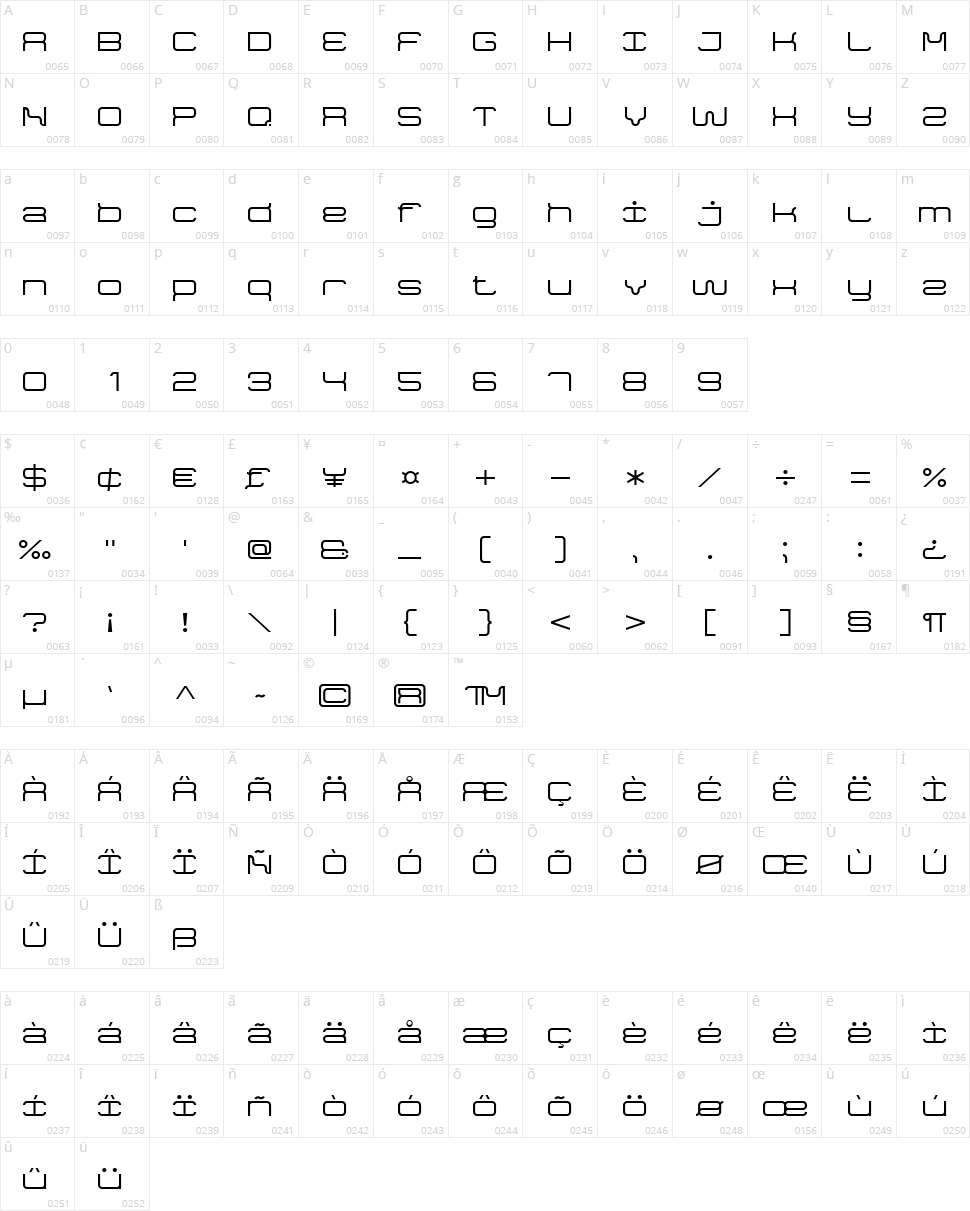
True Type Font: Game Font 7 version 1.0
Original thin font. Western and Cyrillic code pages are supported. The font was created special for freeware game "Android Arkanoid-7".
Sizenko Alexander
Style-7
| Designer Name: | Style-7 |